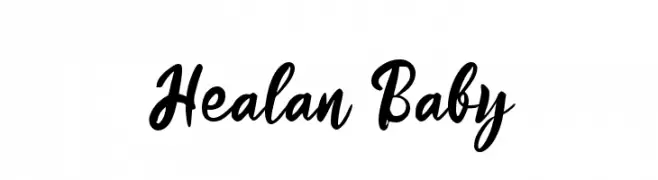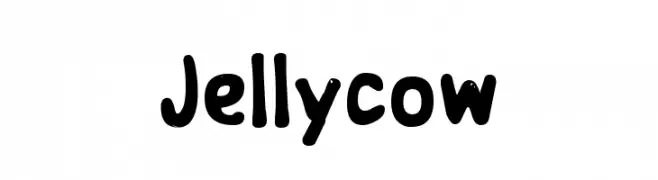
A bold, graffiti-style font with dynamic, hand-drawn strokes.
A bold, graffiti-inspired font with dynamic, hand-drawn strokes.
A bold, flowing script font with a playful and energetic style.
A playful, bold, and rounded font with a hand-drawn feel.
A dynamic and elegant script font with fluid, connected strokes.
Handwritten script font with elegant, flowing strokes.
Bold, distressed sans-serif with a hand-painted, energetic look.
A bold, jagged font with a stormy, dynamic appearance.
A bold, italicized font with a dynamic, wind-swept appearance.